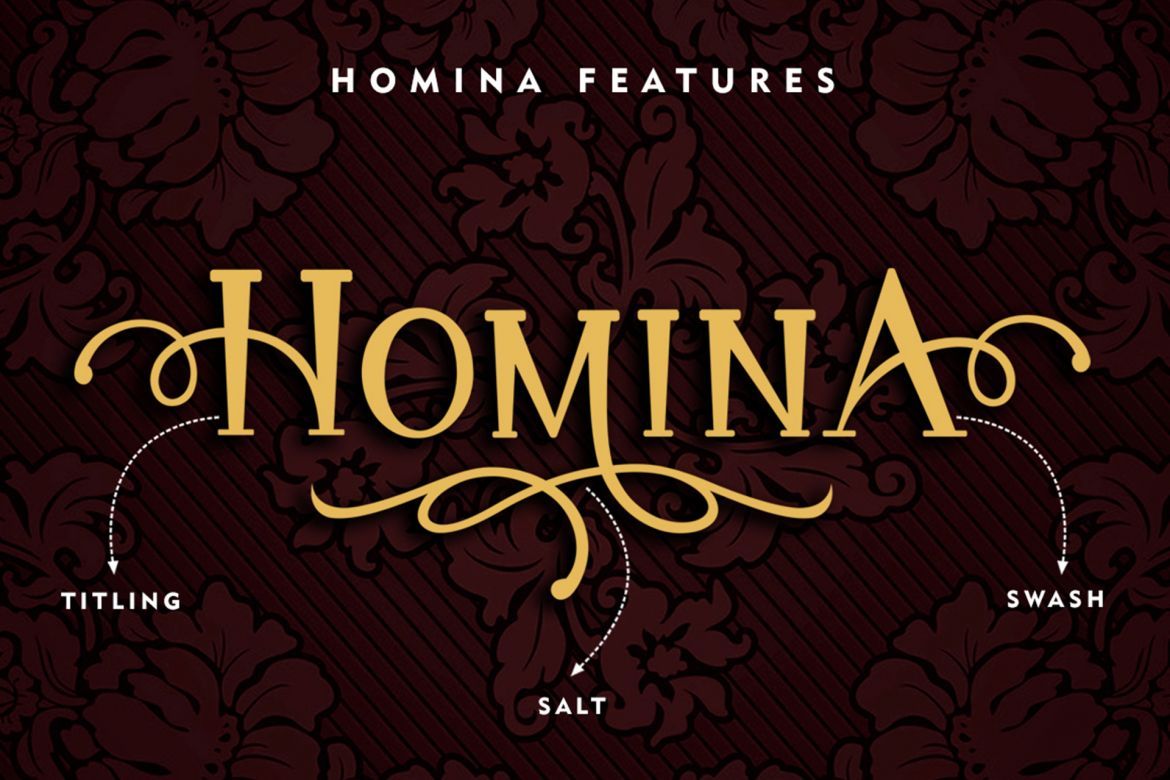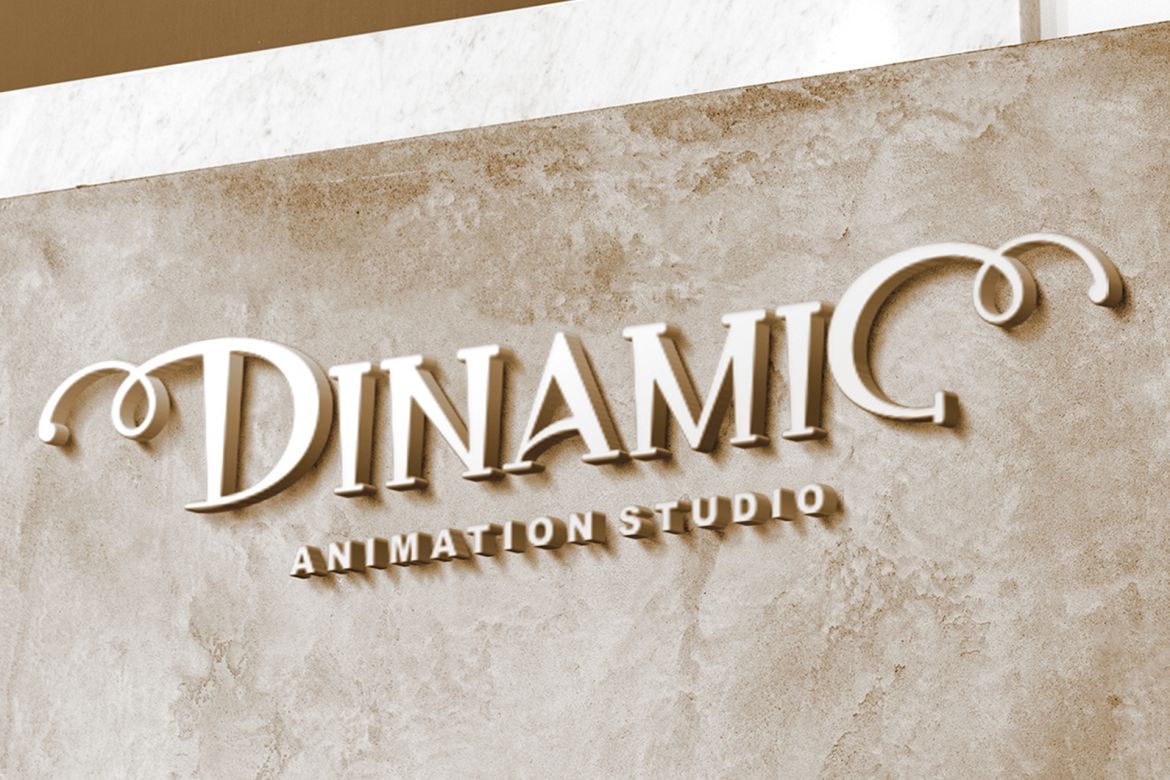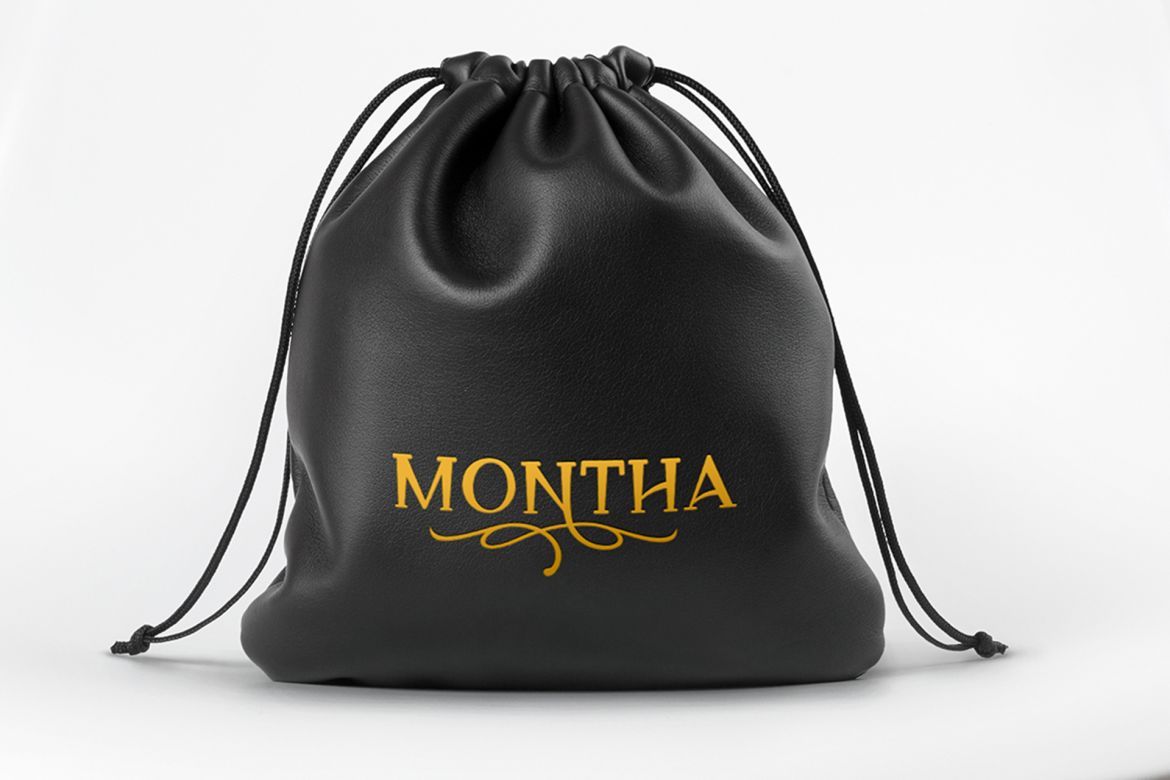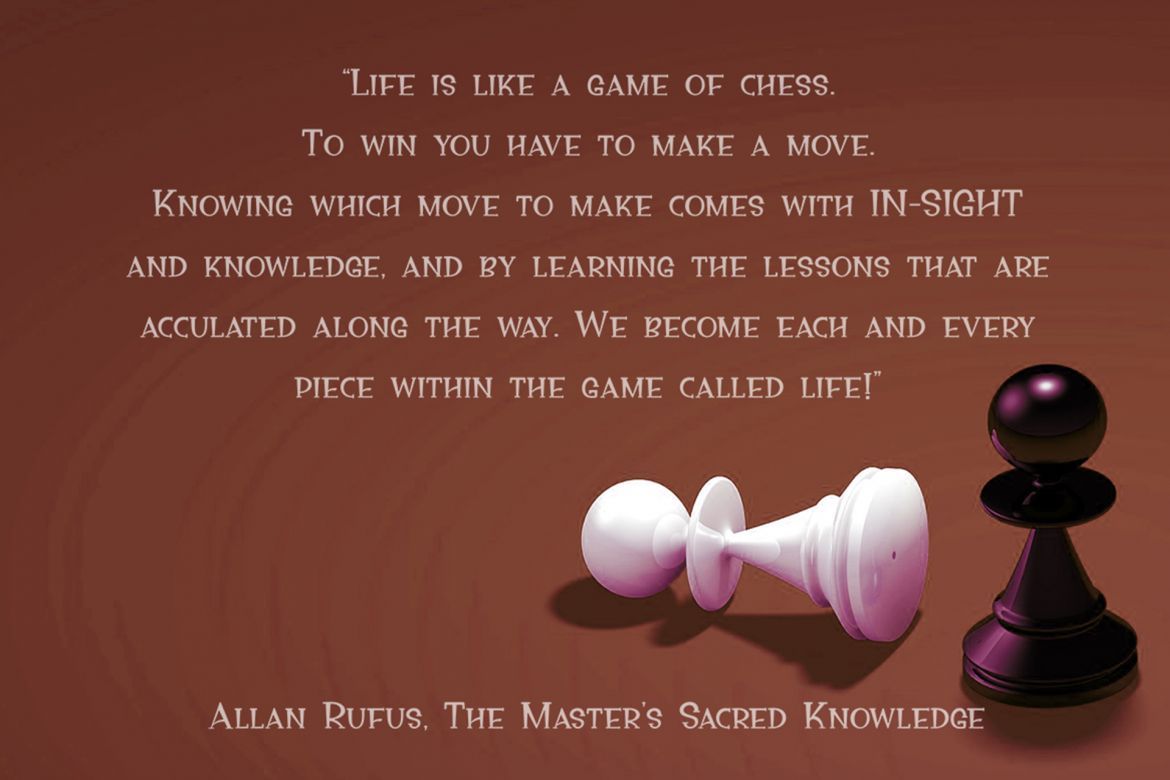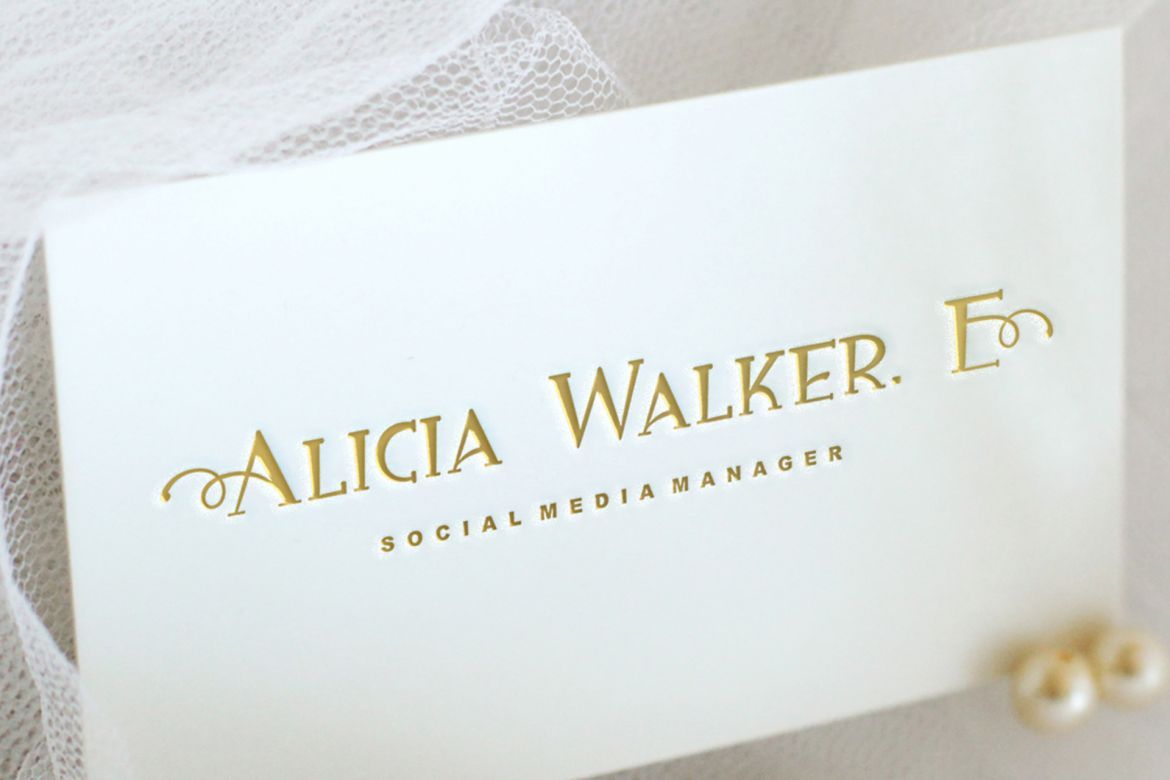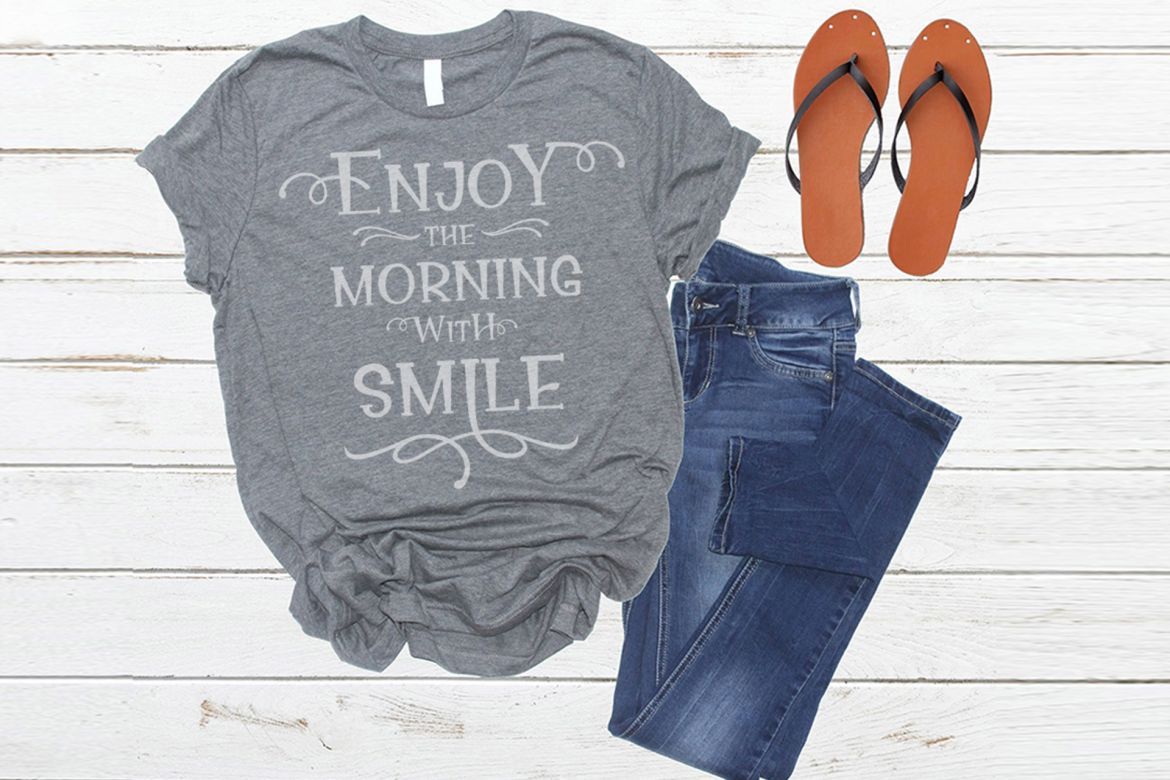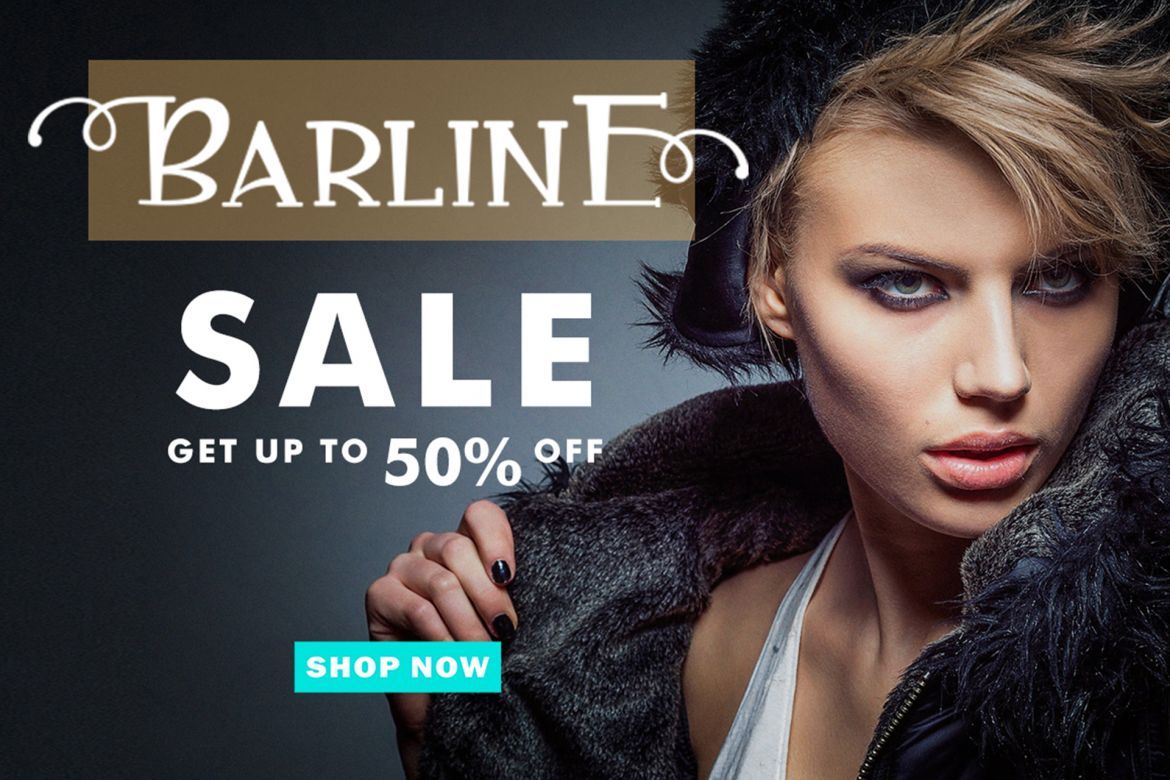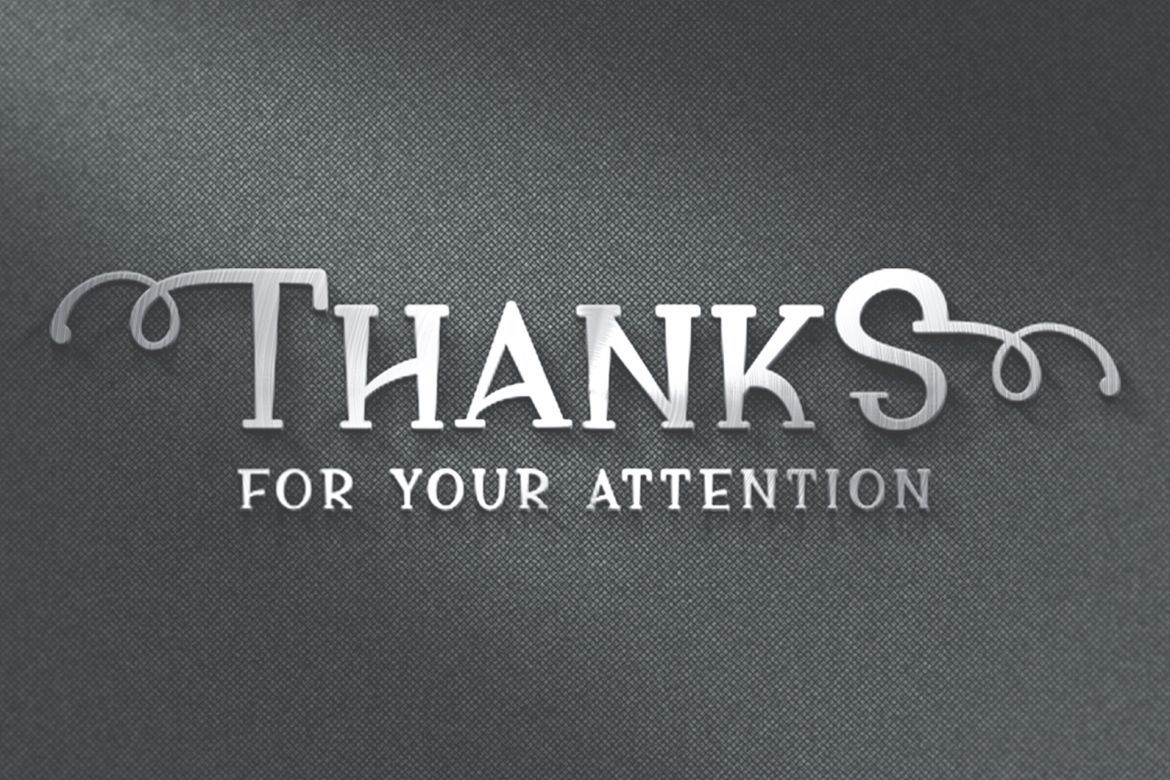
Homina Display Font
The Homina is a new display font with tons of cool characters. It’s perfect for quotes, logos, apparel, advertising, wedding invitations and packaging designs.
• each font has stylish handwritten style
• opentype features